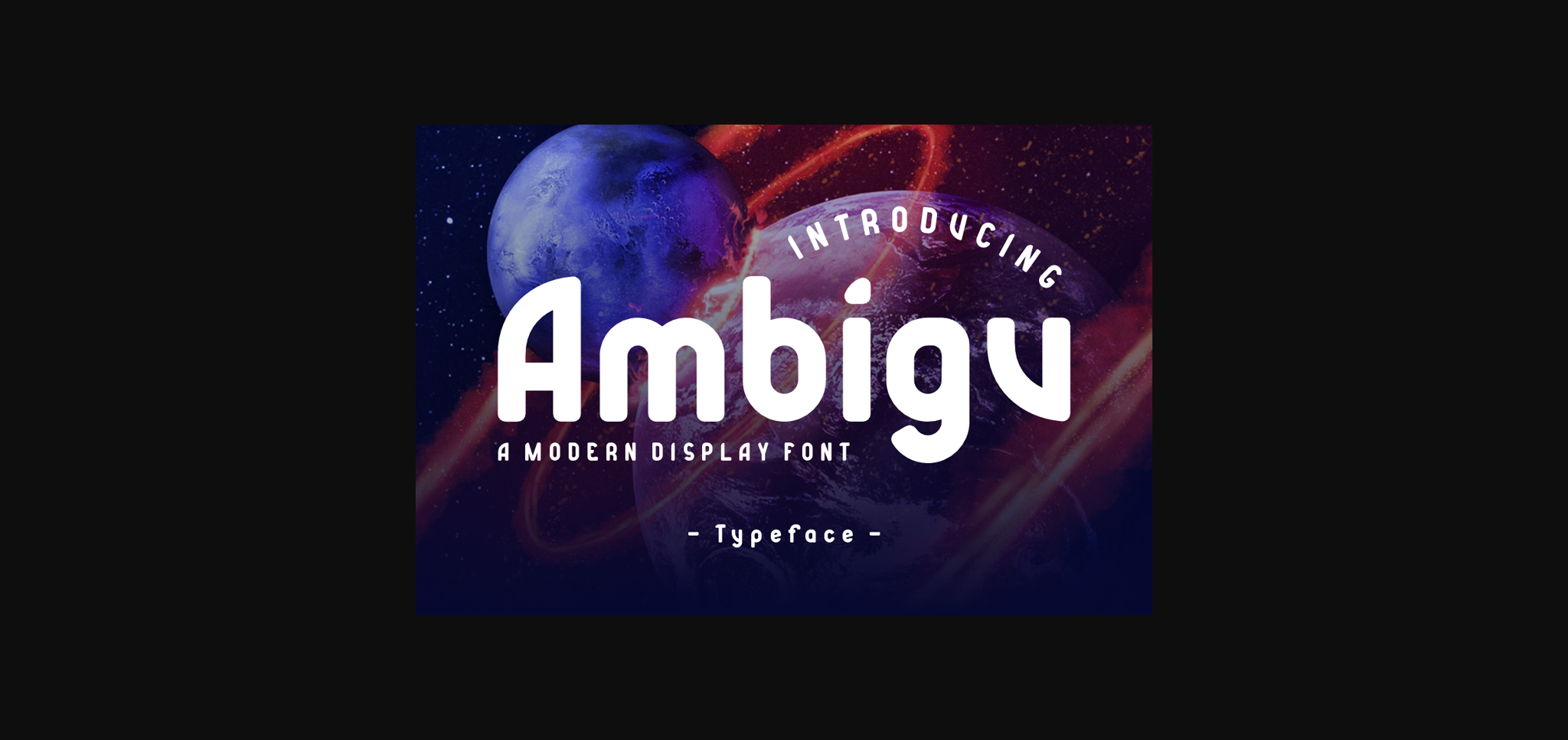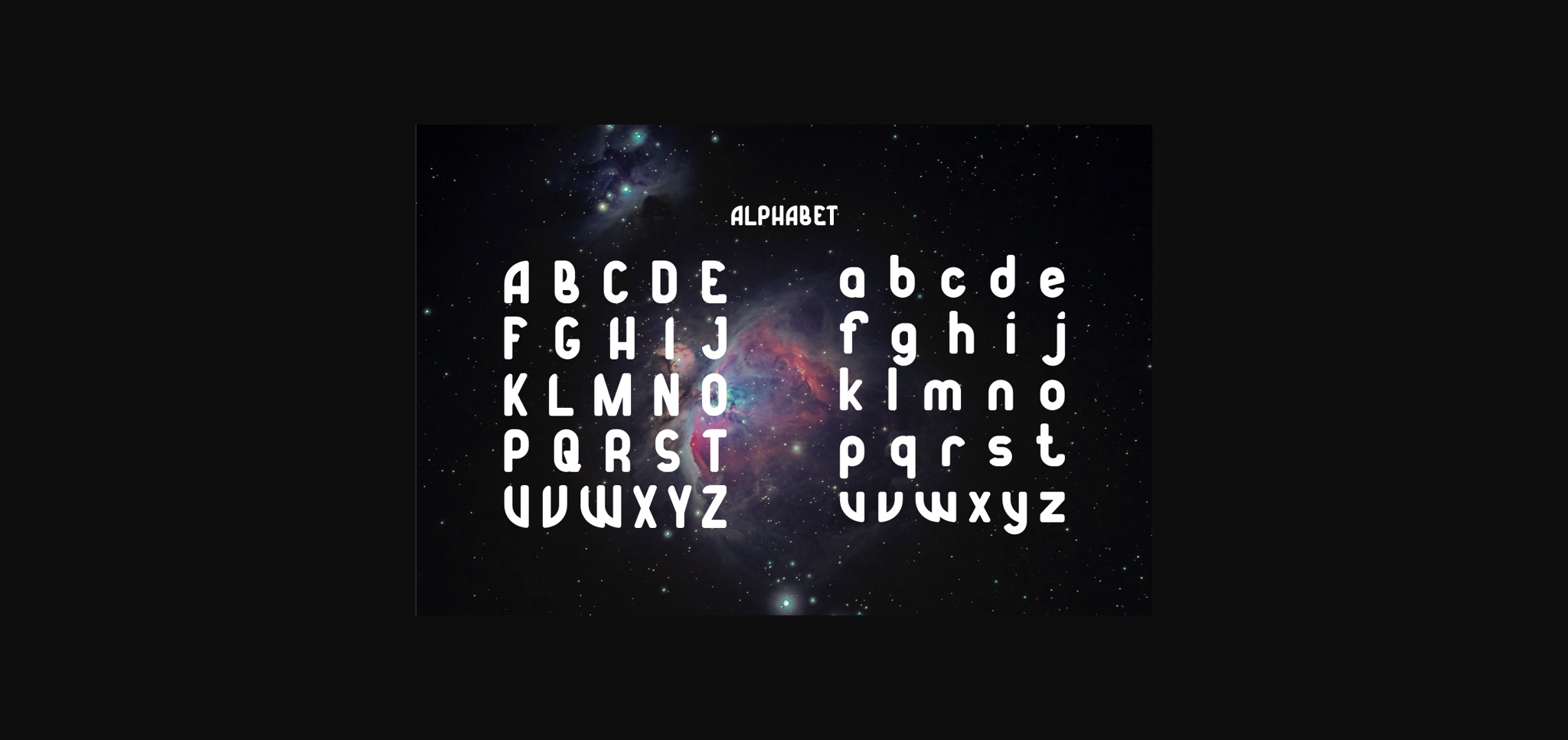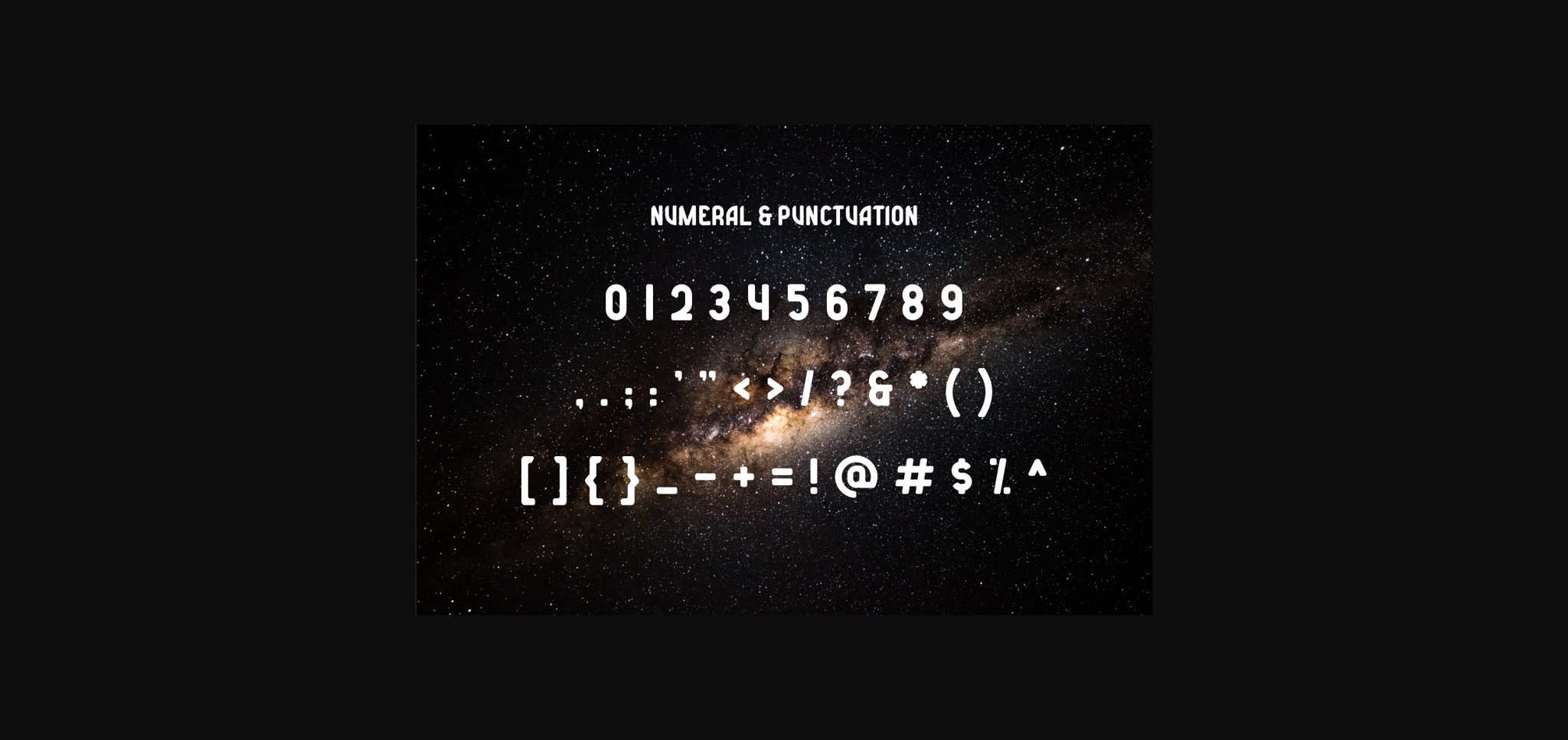
About Ambigu Font
Ambigu is a cool and bold sans serif font. This original look will appeal to a wide range of crafty ideas, from letterheads and titles to stationery.